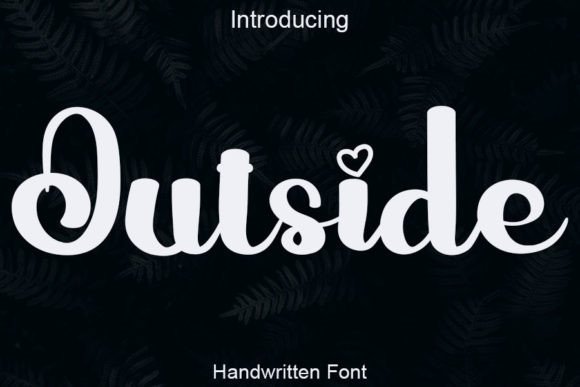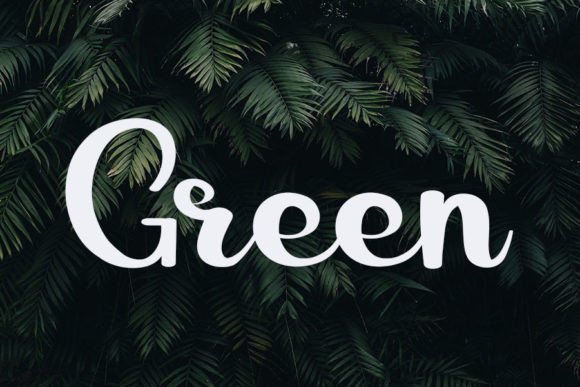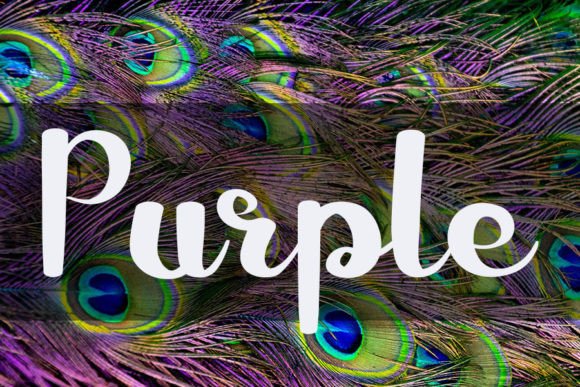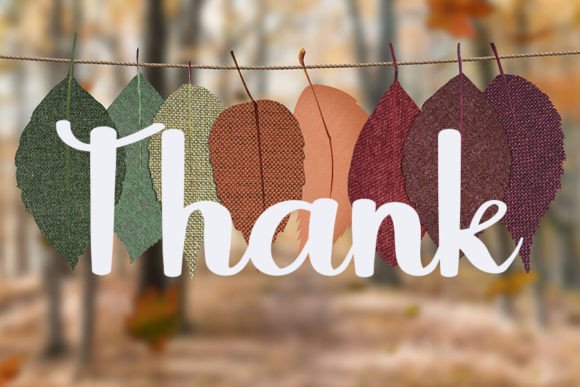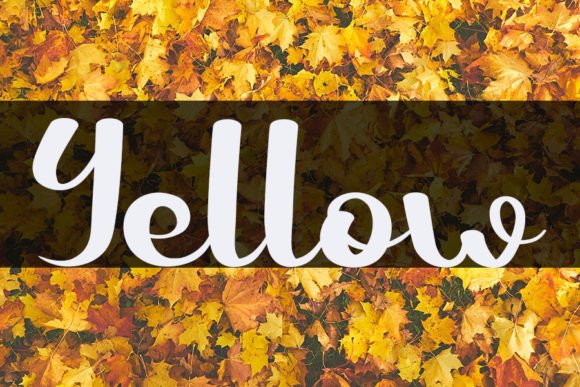
Outside Font
Outside Font: Elegant Handwriting for Versatile Designs
“Outside” is a meticulously crafted handwritten font that combines neatness and beauty with an elegant touch. It’s perfect for various creative projects, from branding materials to digital media.
Key Features of Outside Font
• Elegant Style: Outside brings sophistication and clarity to designs.
• Versatile Use: Suitable for many projects, including branding and invitations.
• Timeless Appeal: Creates designs that stand out and leave a lasting impression.
Outside’s elegant style is ideal for creating sophisticated logo designs and branding materials that convey professionalism.
Invitations and Stationery
Use Outside to design beautiful invitations and greeting cards that exude class and timelessness.
Digital Media and Web Design
The font’s clarity makes it perfect for creating engaging website headers and digital content.
Why Choose Outside Font?
Outside offers more than just beautiful letters. Here’s why it stands out:
• Enhances readability while maintaining elegance
• Adds a touch of sophistication to any design
• Versatile enough for both high-end and casual projects
By using Outside, you open up new design possibilities. Its elegant style works well in many contexts, from poster designs to book covers. The font’s ability to convey sophistication can inspire creative ideas and help you approach projects from a fresh perspective.
If you’re looking for a font that combines elegance with versatility, Outside is an excellent choice. It’s perfect for adding a touch of sophistication to your work, especially for projects that need a timeless, refined feel.
Explore how Outside can transform your designs. From luxury branding to personal projects, this font brings a neat and captivating quality to your creations.